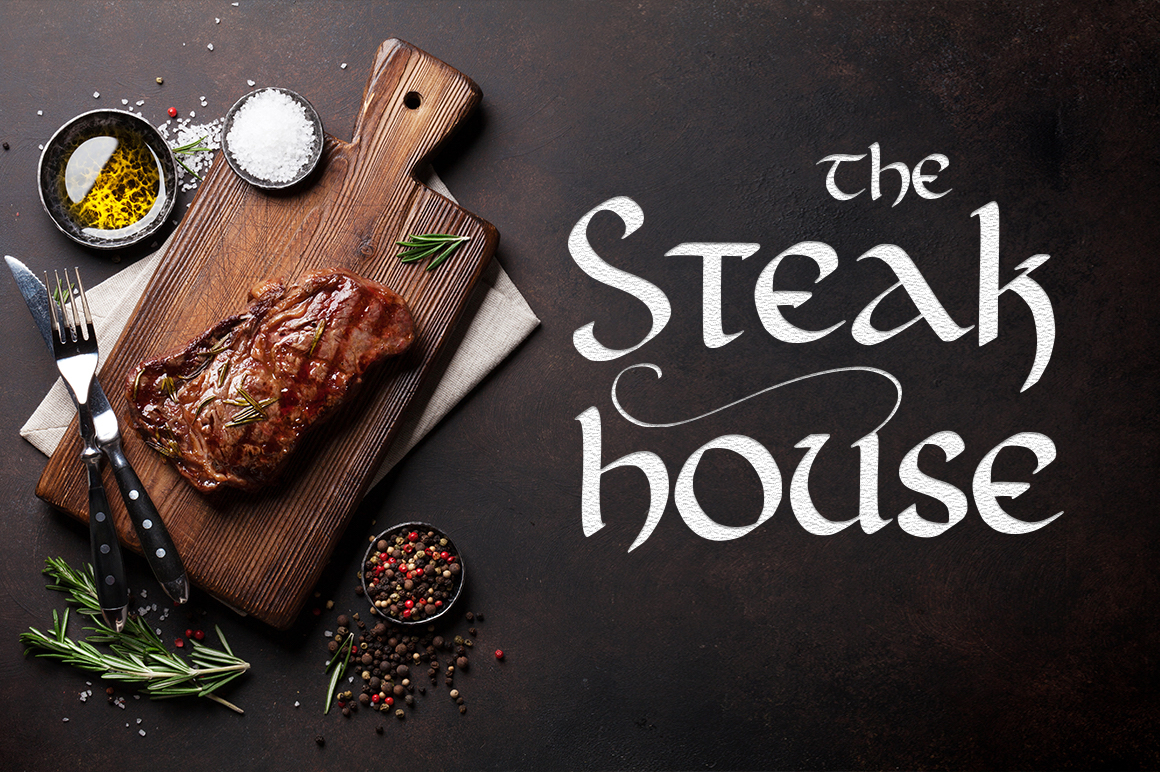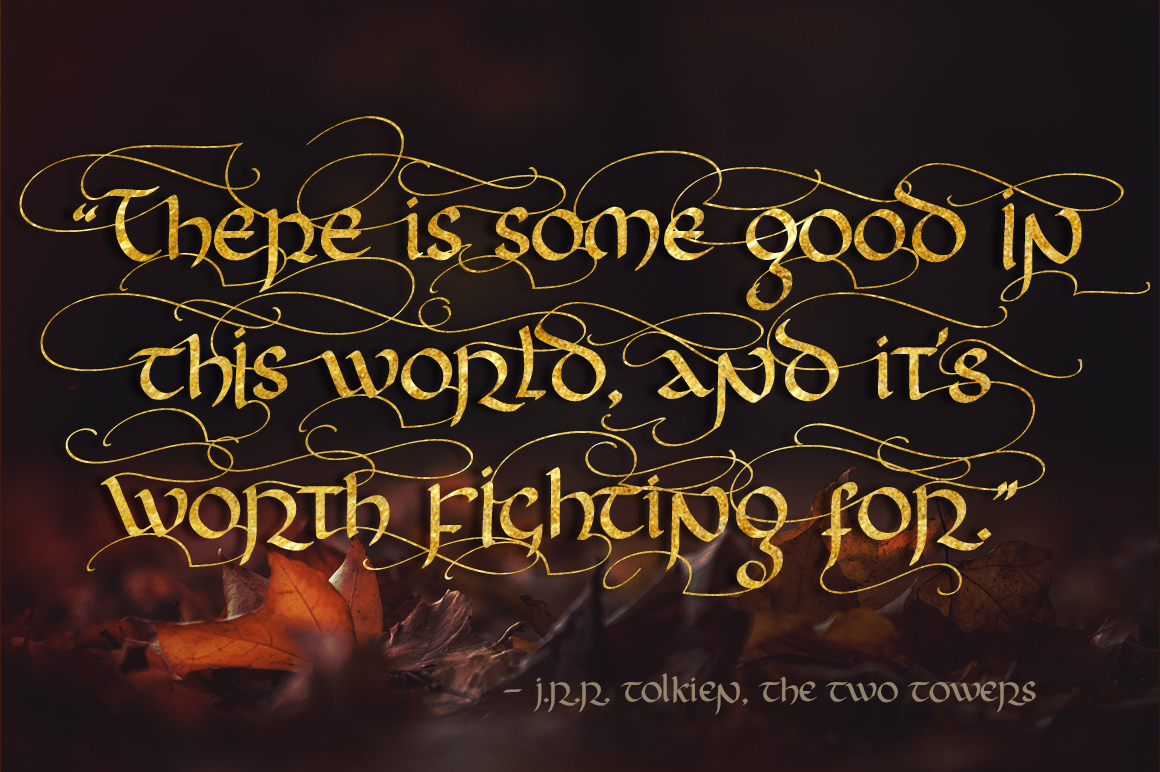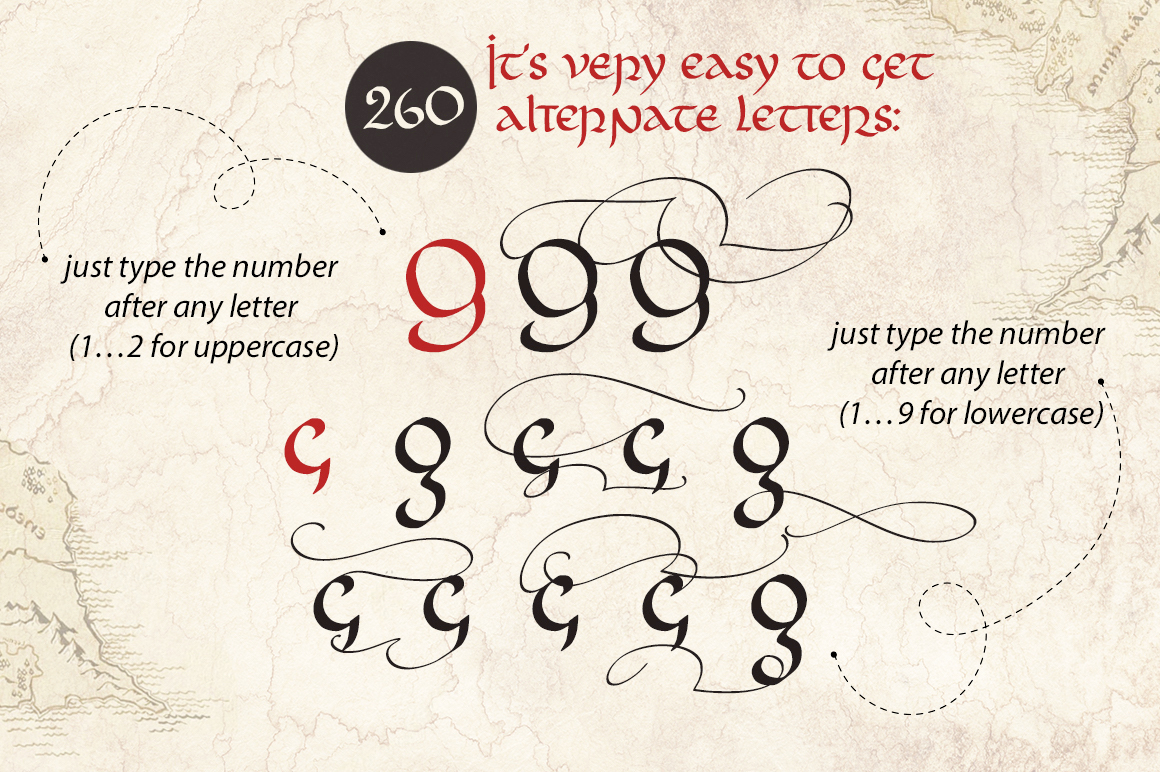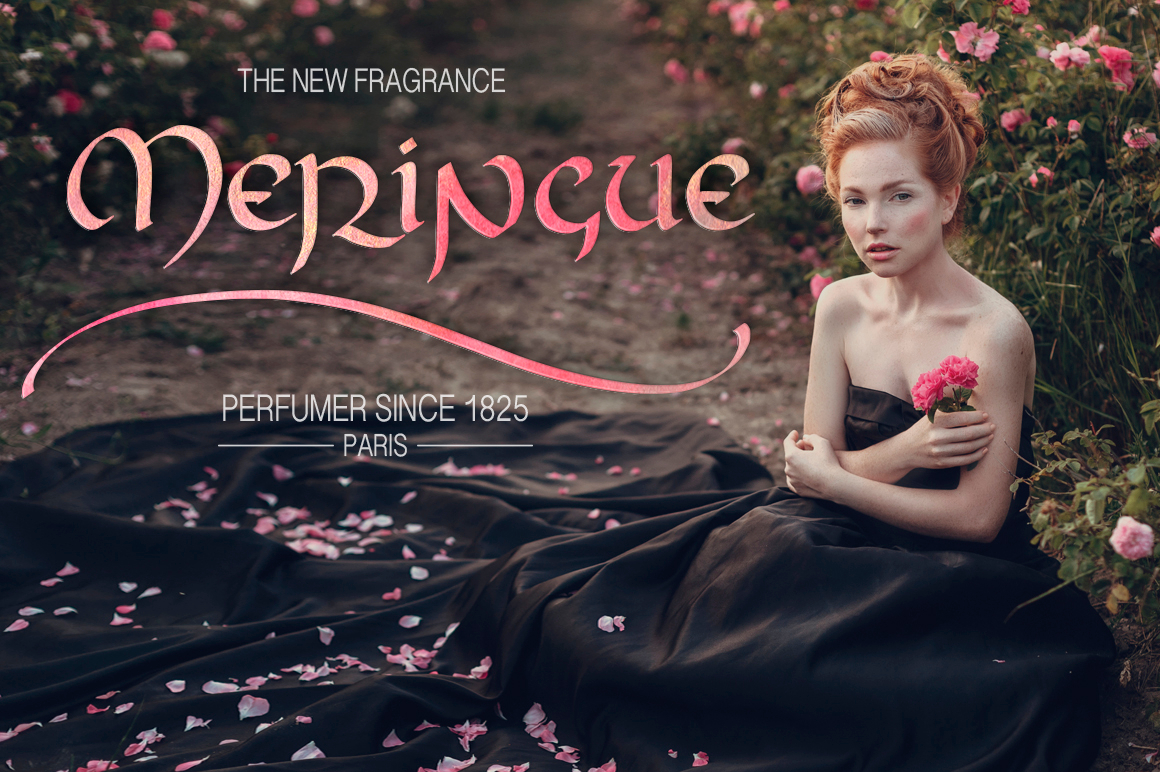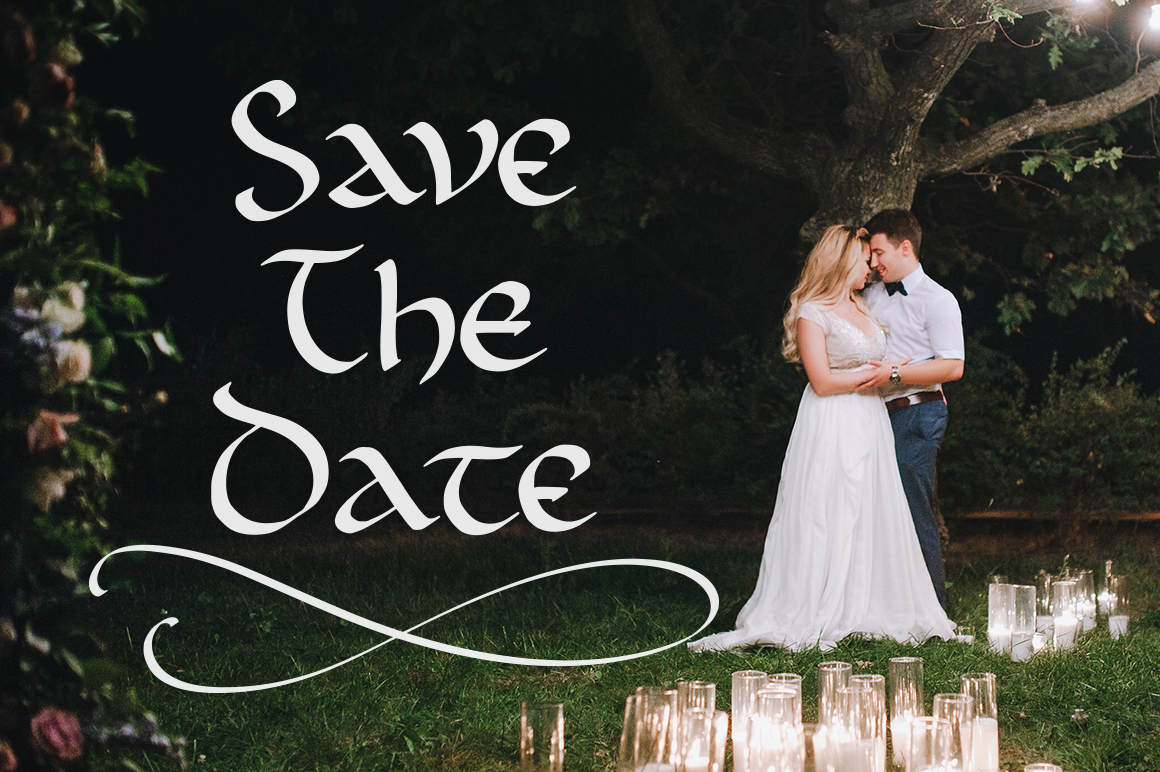
About Rivendell Font
The Rivendell font has a classic, elegant, vintage, and magic feel. It’s the perfect tool to create amazing designs like vintage cards, modern t-shirts, retro posters, unusual mugs, luxury branding materials, and any other project you’re working on.
Rivendell is a symbiosis of many styles of writing – Uncial, Caroline minuscule and others. It’s a beautiful blackletter font with lots of alternate letters to create typographic magic.
The 2 variants of alternate uppercase letters and the 9 variants of alternate lowercase letters make this font an unique tool for creating amazing hand drawn texts, richly decorated with swashes.